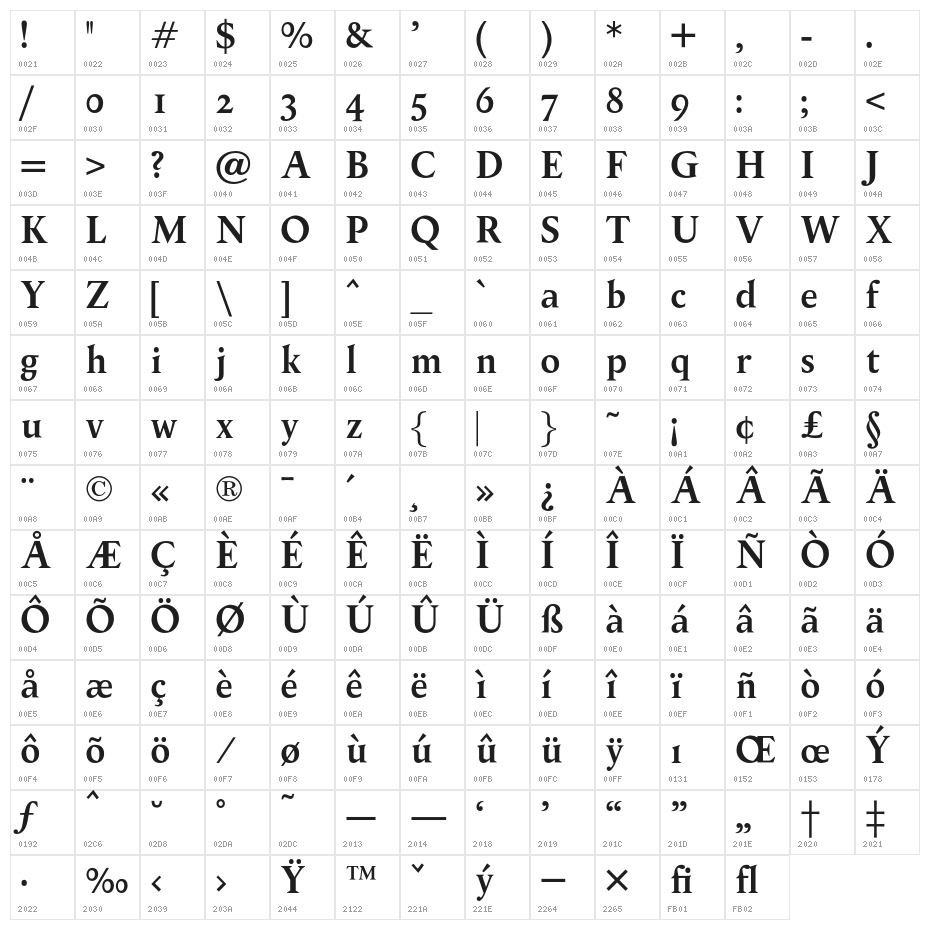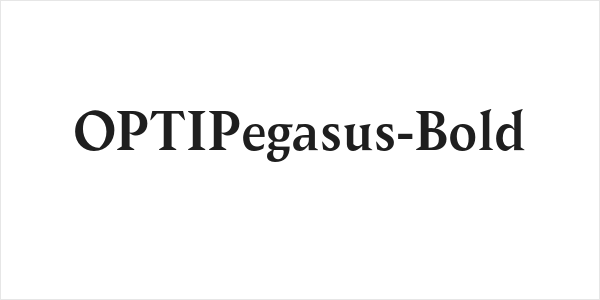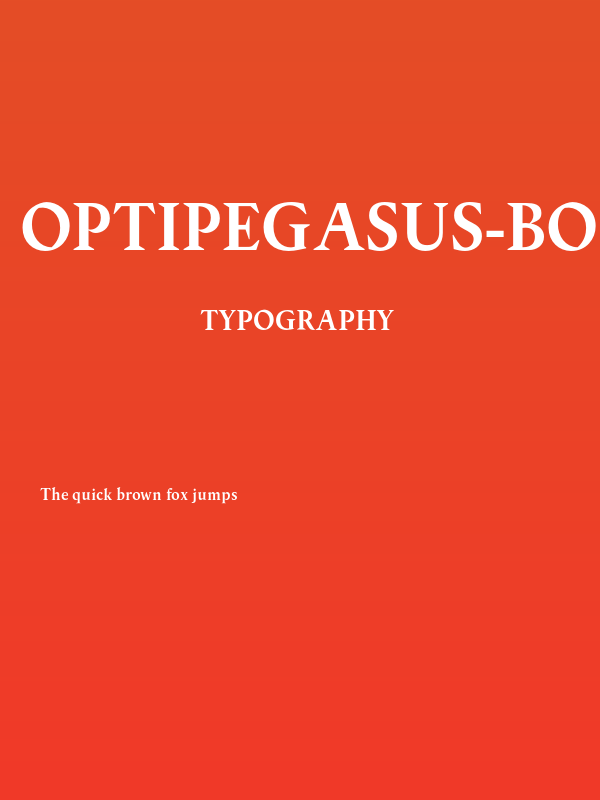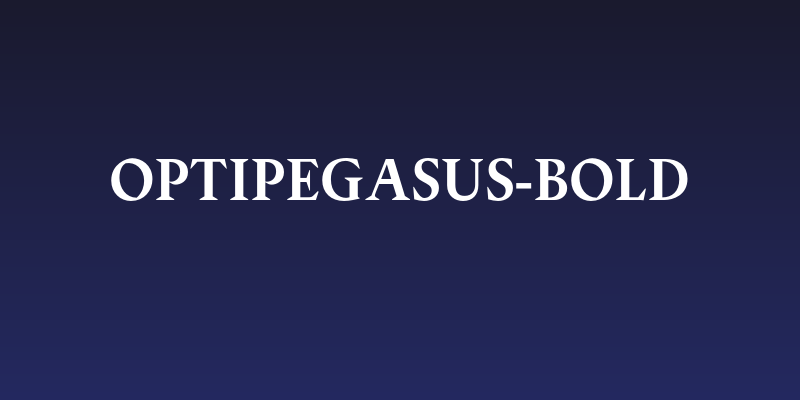
OPTIPegasus-Bold Font
OPTIPegasus-Bold Description
This typeface exhibits a classic serif design with a bold and authoritative presence. The characters are well-defined with sharp serifs and a balanced weight distribution, making them highly legible. The uppercase letters are tall and commanding, while the lowercase letters maintain a consistent flow with slightly rounded edges. The numerals are clear and distinct, complementing the overall aesthetic. Special characters are crafted with precision, adding to the font's versatility. This font is suitable for projects that require a traditional yet impactful look.
| Use Case | Headlines, Logos, Editorial |
| Proposed Projects | Ideal for book covers, editorial headlines, formal invitations, and branding materials. |